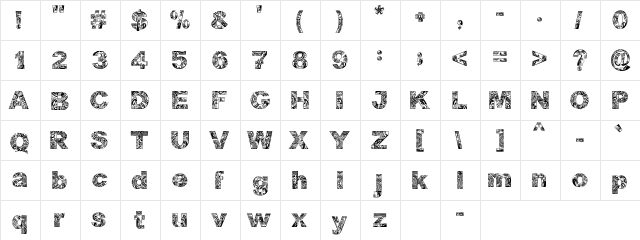
BATIK WORLDWIDE Regular
| Designer | Letterara |
Design Context for BATIK WORLDWIDE Typeface
BATIK WORLDWIDE is a composed and adaptable typeface that performs quietly and consistently across a wide range of design contexts.